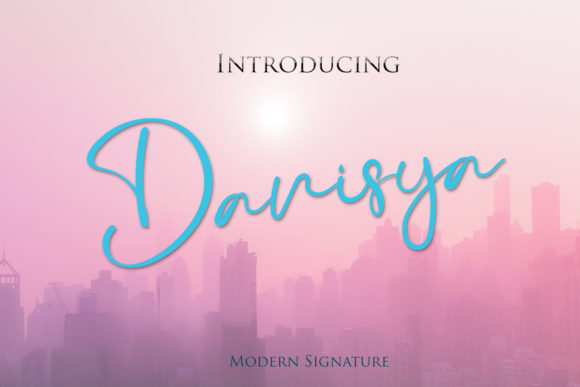
Danisya Font: Where Elegance and Sophistication Meet
In the realm of digital artistry, where creativity flourishes and expression takes form, the Danisya Font stands as a beacon of beauty and elegance. This script font, meticulously crafted by the talented designers at Lettercorner Studio, is a symphony of flowing lines, graceful curves, and timeless charm.
A Stroke of Brilliance:
Danisya Font exudes a captivating aura, embodying the essence of sophistication and refinement. Its meticulously designed characters dance across the page, evoking a sense of timeless elegance that is both captivating and alluring. Whether gracing wedding invitations, branding projects, or social media posts, Danisya Font elevates every design with its innate grace and charm.
The Art of Storytelling:
With Danisya Font as your creative companion, storytelling takes on a new dimension. Its organic flow and authentic vibe lend themselves perfectly to conveying emotions and narratives in a way that resonates with your audience. Whether crafting heartfelt letters, poignant poems, or captivating marketing copy, Danisya Font becomes a conduit for expressing your unique voice and captivating the hearts of your readers.
Inspiration at Your Fingertips:
The Danisya Font is a muse for creativity, inspiring designers and artists alike to explore the boundless possibilities of visual expression. Its contemporary style is a canvas upon which imagination takes flight, allowing you to create designs that are both captivating and timeless. From elegant logos to eye-catching social media graphics, Danisya Font empowers you to make a statement that leaves a lasting impression.
Embark on a Creative Odyssey:
With Danisya Font as your trusty companion, you embark on a creative odyssey, where the boundaries of imagination dissolve and limitless possibilities await. Whether you're a seasoned designer, a budding artist, or simply someone who appreciates the beauty of typography, Danisya Font is your gateway to a world of endless inspiration.